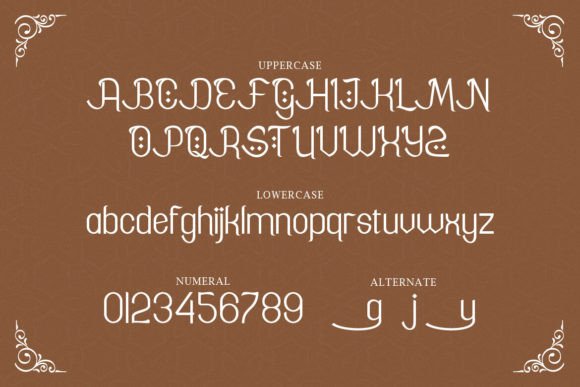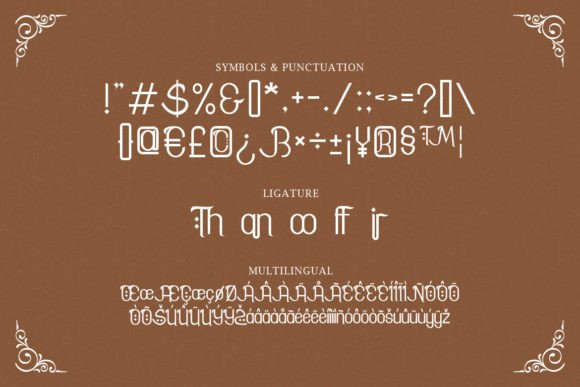
Introduction to Labaniy Font
Introducing β€œLabaniy” – an Arabic display font that captures the essence of Arabic calligraphy, offering a captivating typographic solution for your designs.
With its graceful curves and intricate details, β€œLabaniy” celebrates the beauty and richness of Arabic script Whether you’re designing branding materials, editorial layouts, event invitations, or digital artworks, this font adds a touch of cultural authenticity and timeless elegance to your projects.
Key Features of Labaniy Font
Why Choose Labaniy Font?
Labaniy Font offers exceptional quality and versatility, making it a valuable addition to your design toolkit. Whether you’re creating for personal projects or commercial use, Labaniy Font delivers professional results.